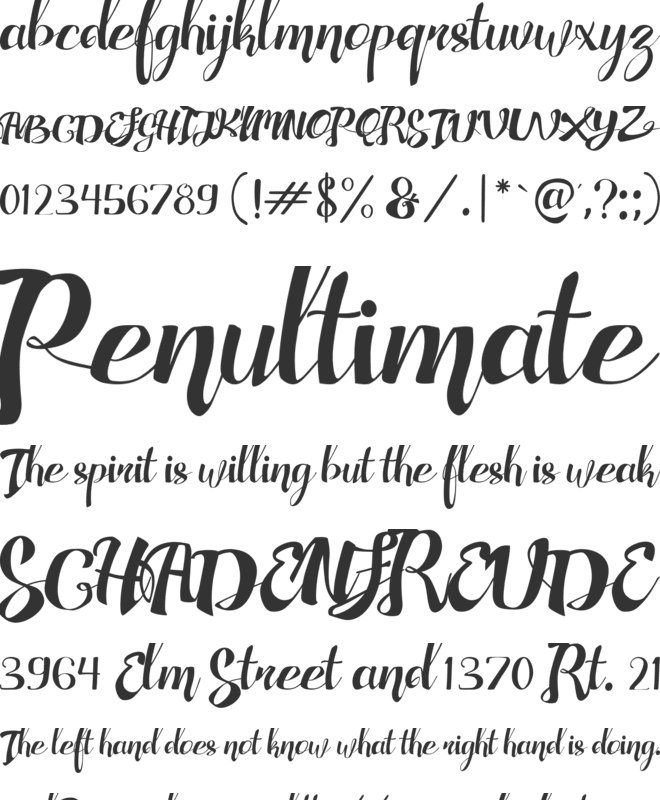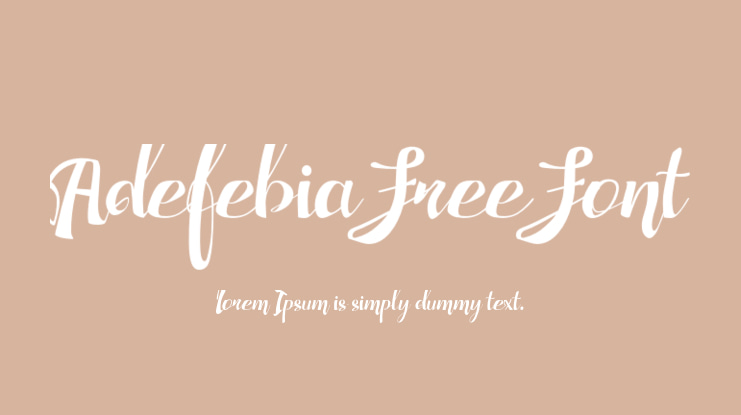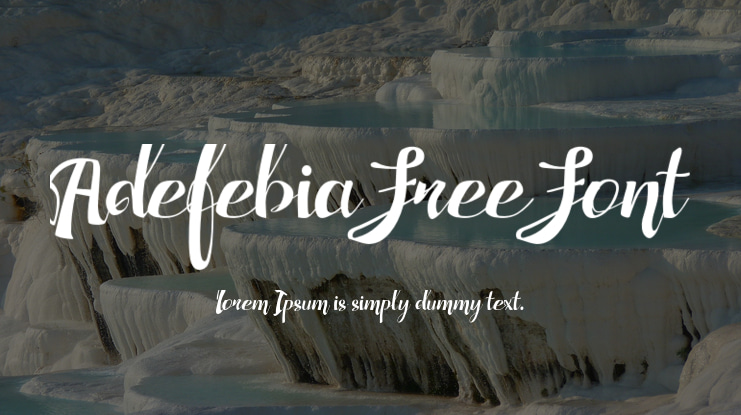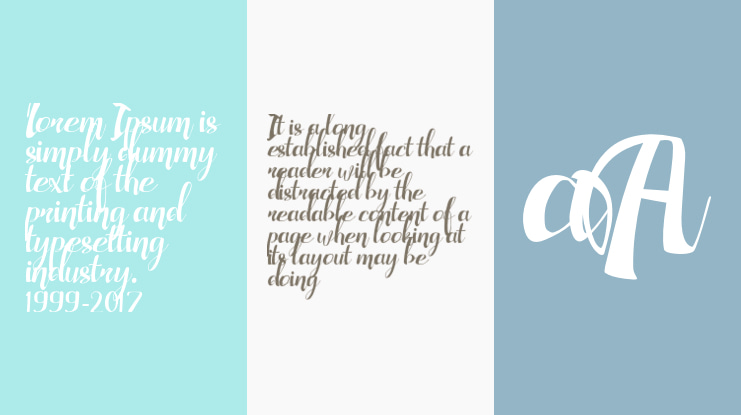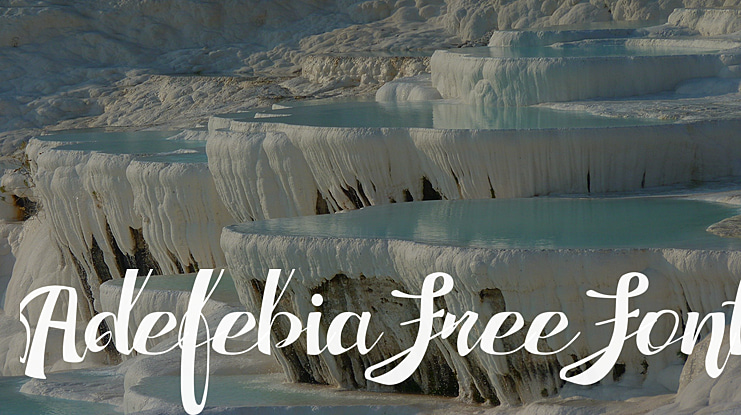
Adefebia Free Font
Adefebia Wedding Script Font
Suitable for design, element design, wedding, event, t-shirt, logo, badges, sticker, and awesome work, etc...